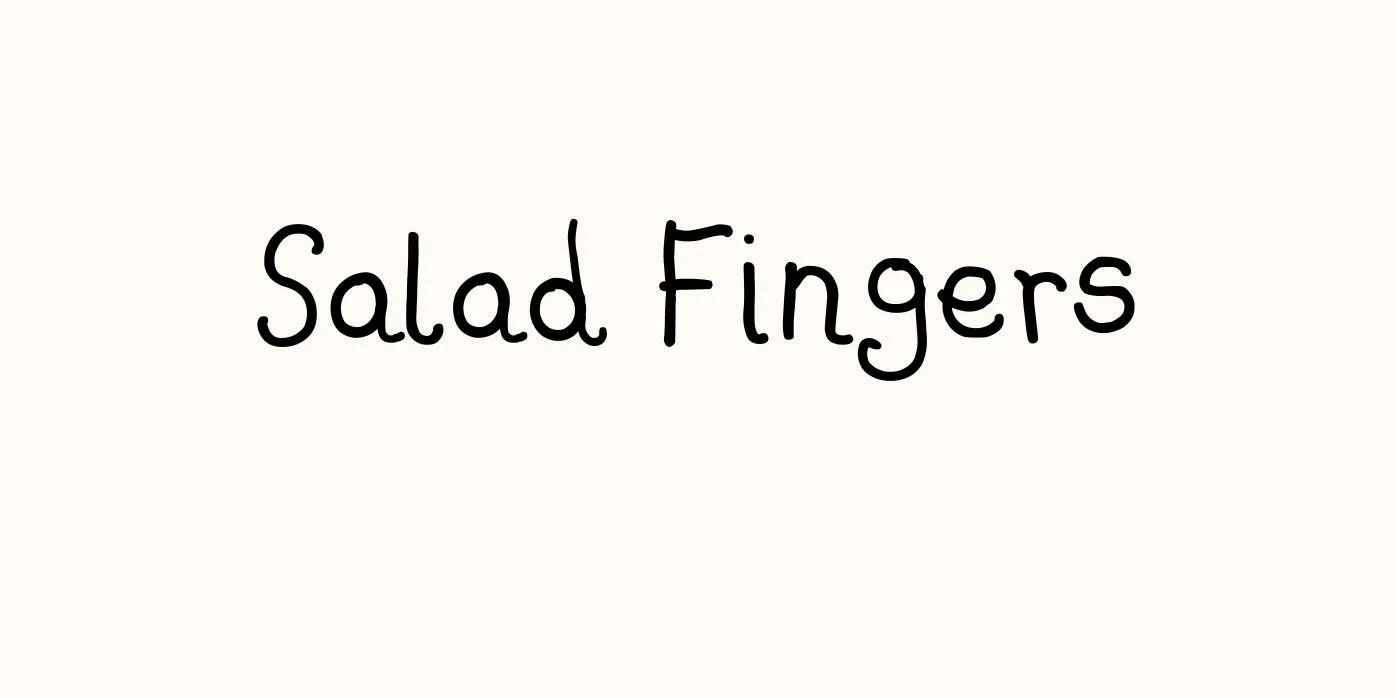
Salad Fingers Font
Salad Fingers Font is a script type of font that has amazing type of characters. This amazing script font is designed by a famous typography-creating foundry named FaEdgar22. These characters have great support for numbers, lowercase letters, uppercase letters, punctuation, special characters, and some international characters. This font has stunning applications.